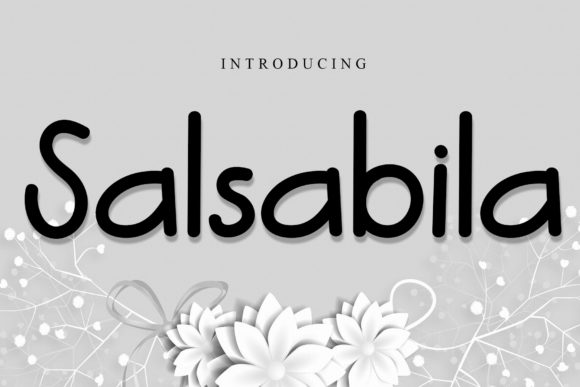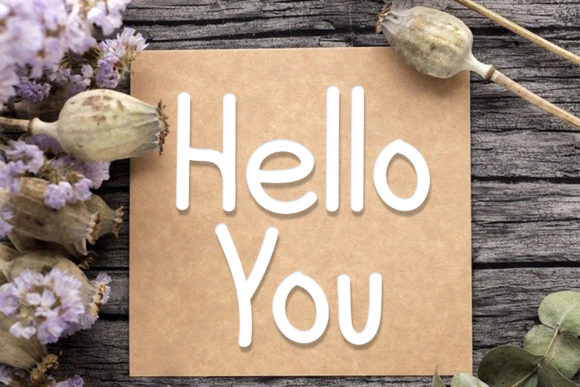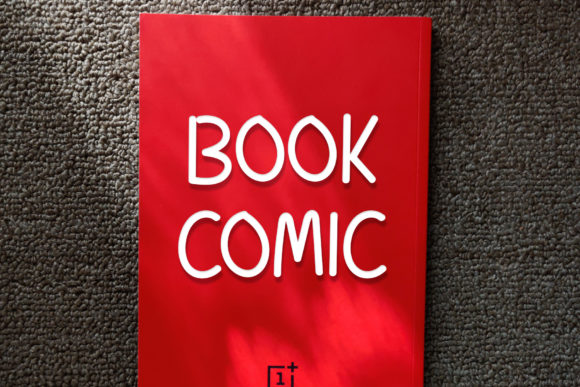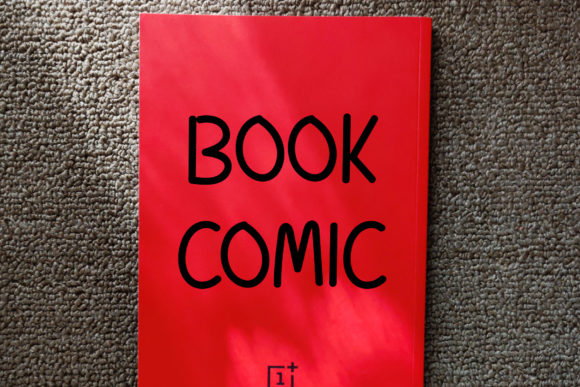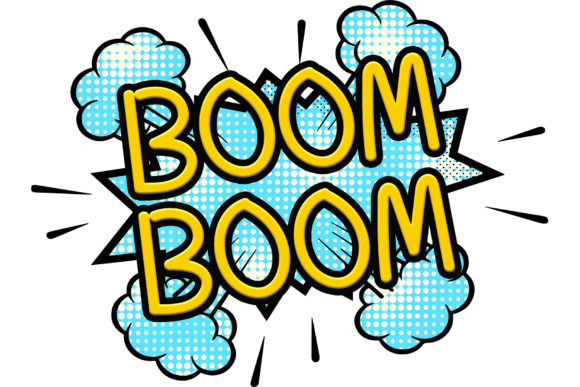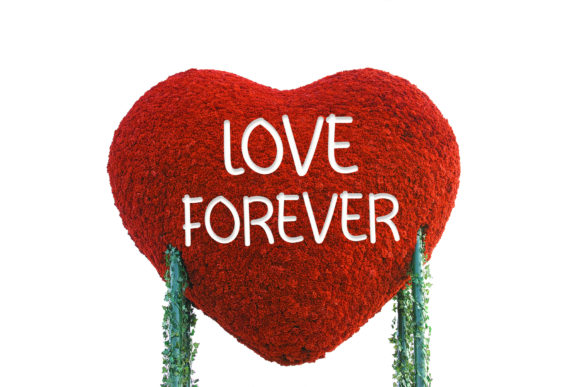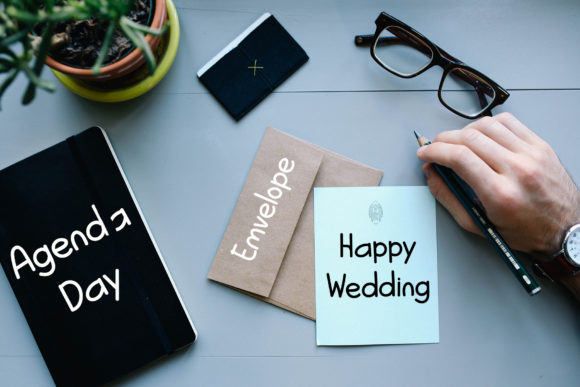
Salsabila Font
About Salsabila Font
Salsabila is a simple and natural handwritten font. It can easily be matched to an incredibly large set of projects, so add it to your creative ideas and notice how it makes them stand out!